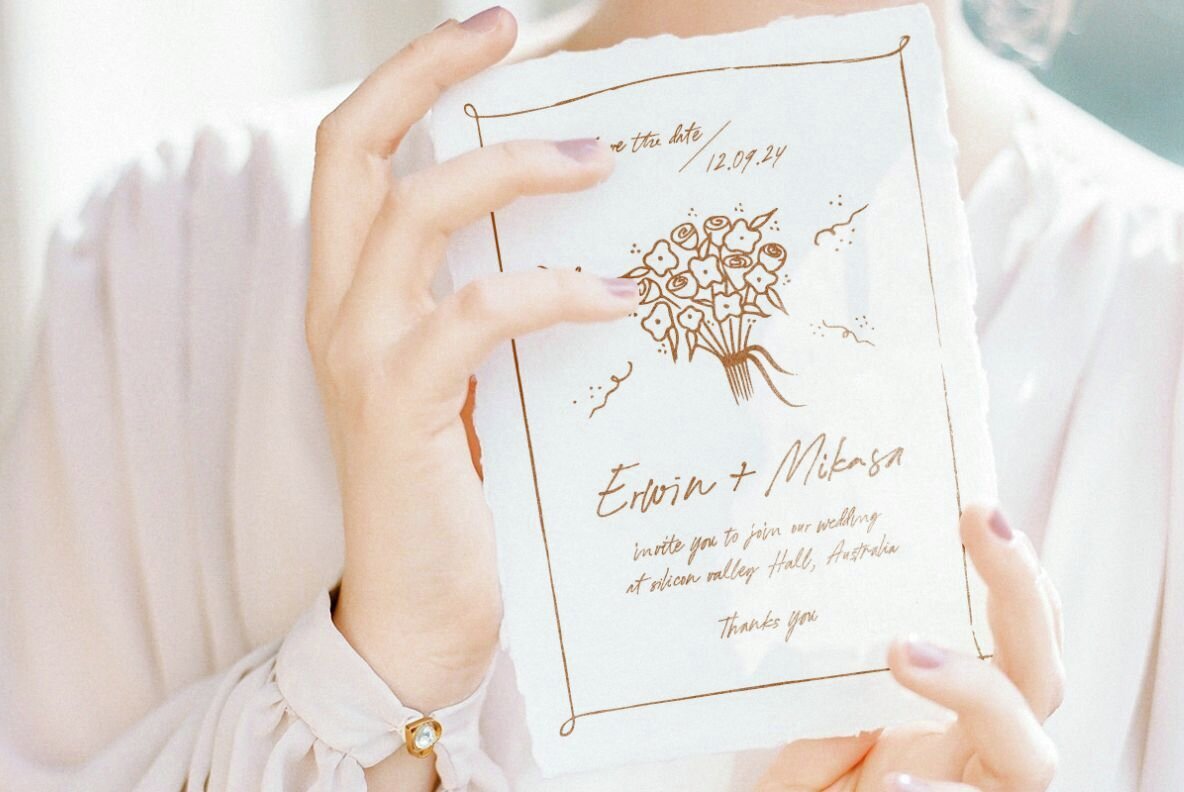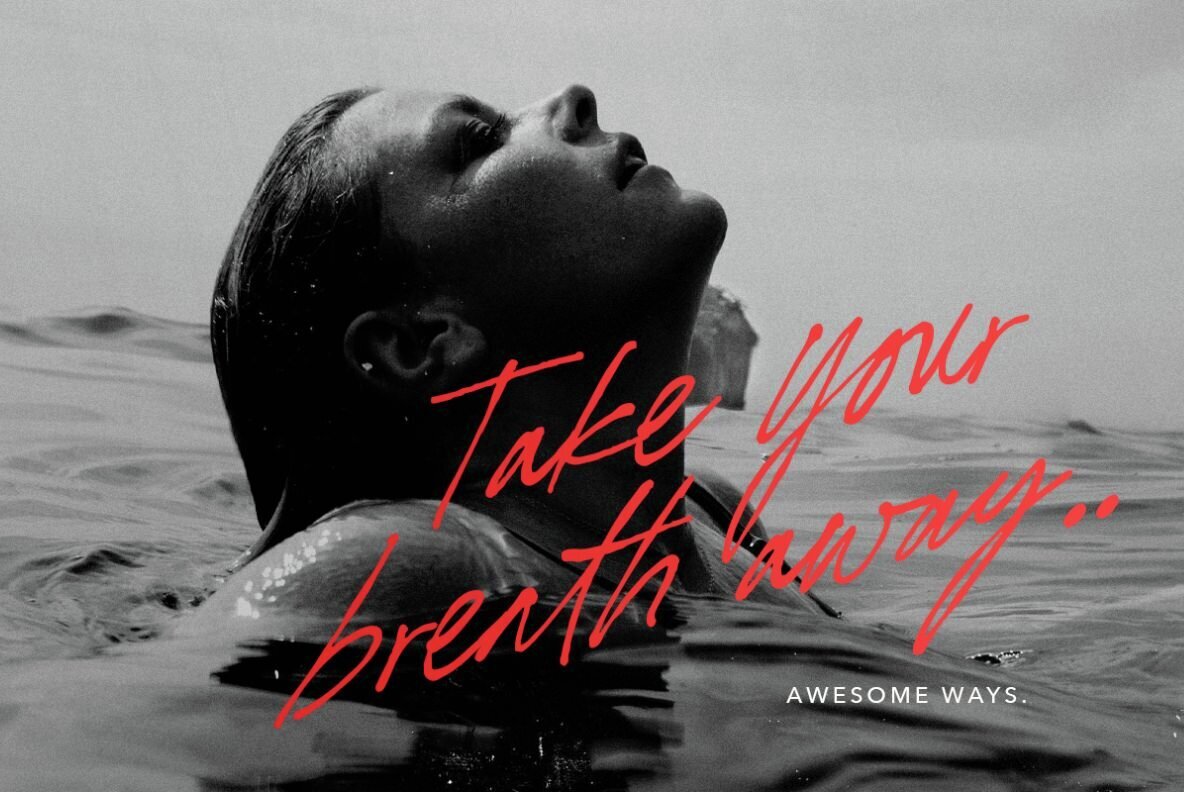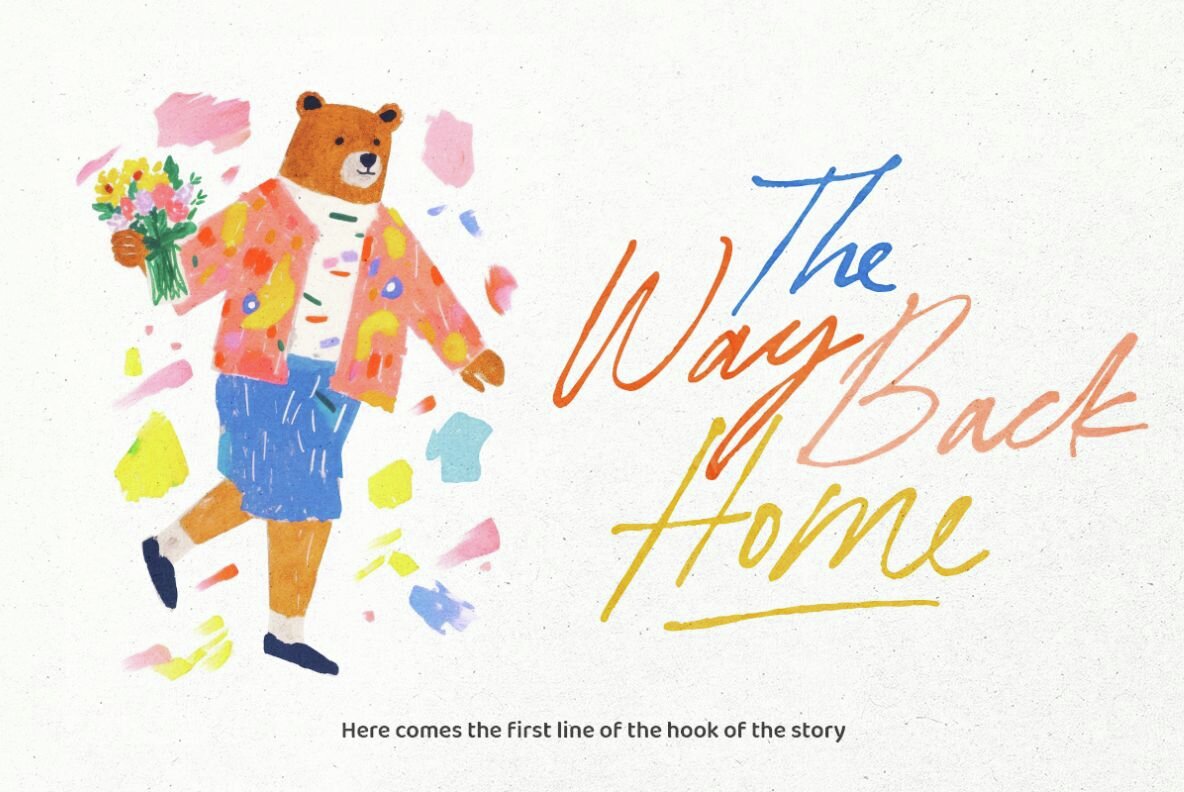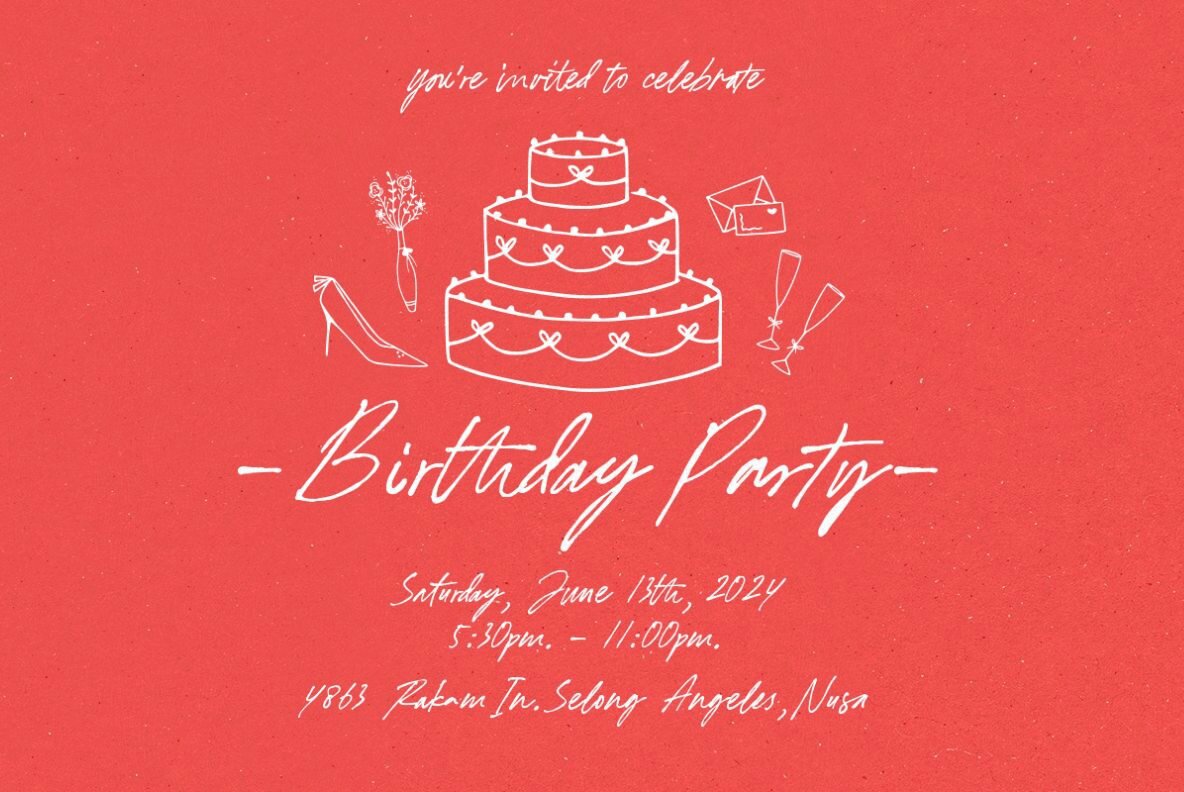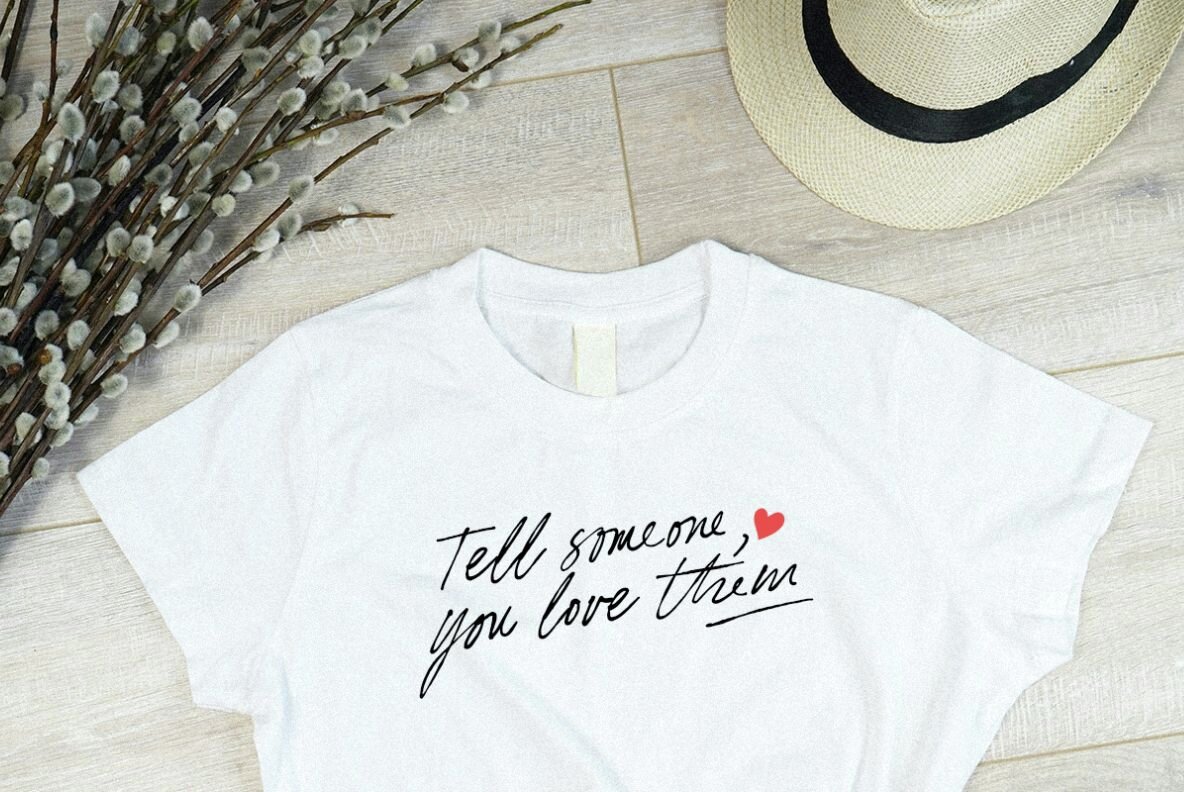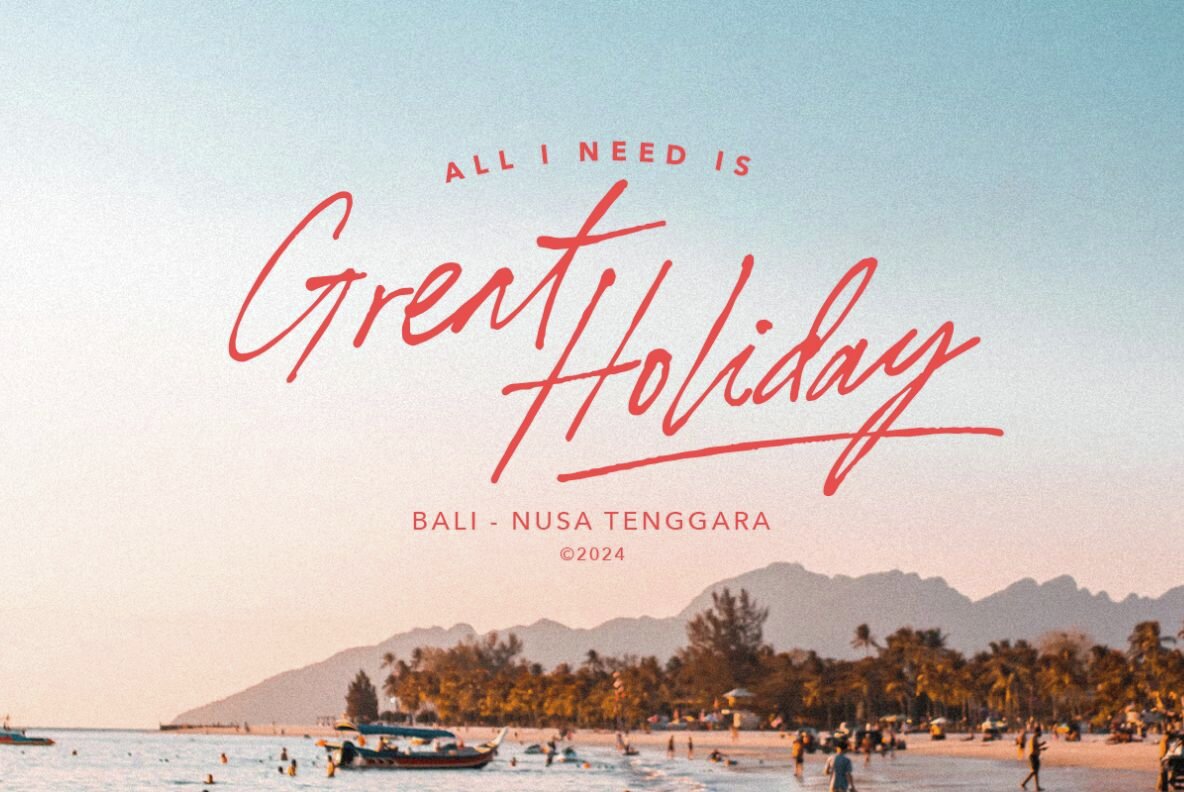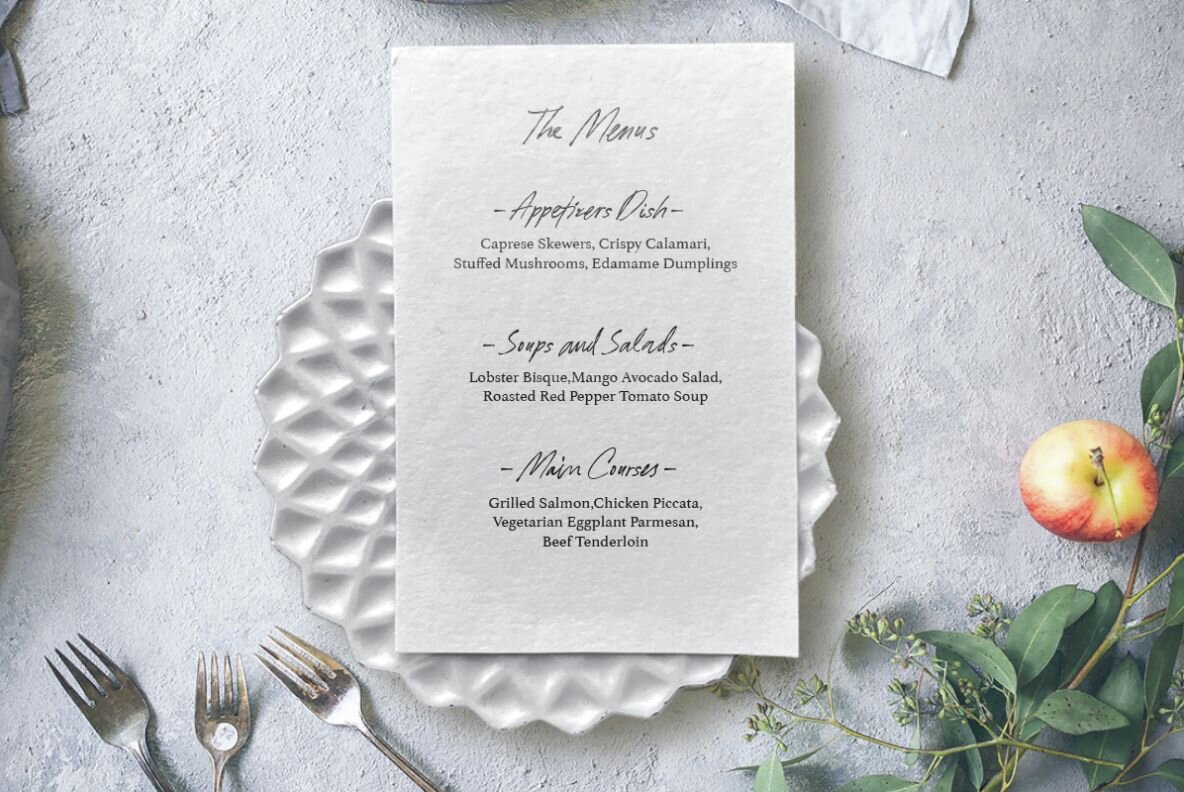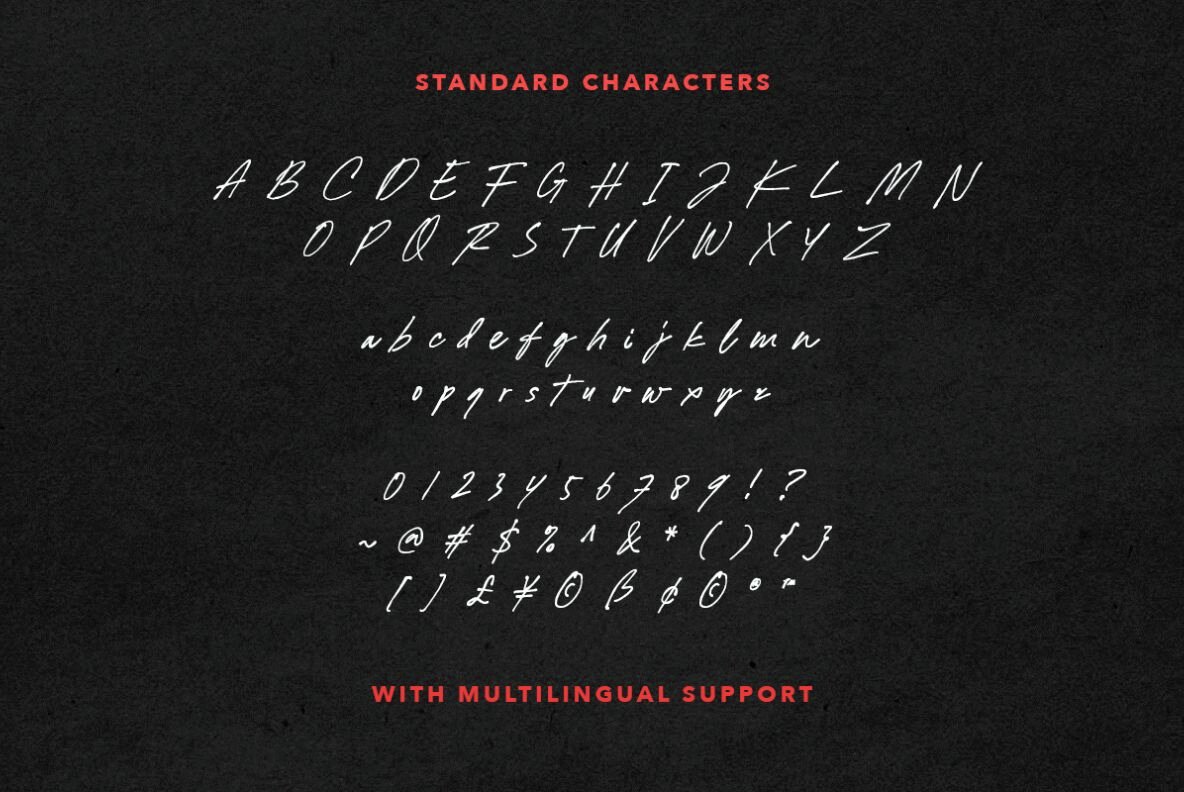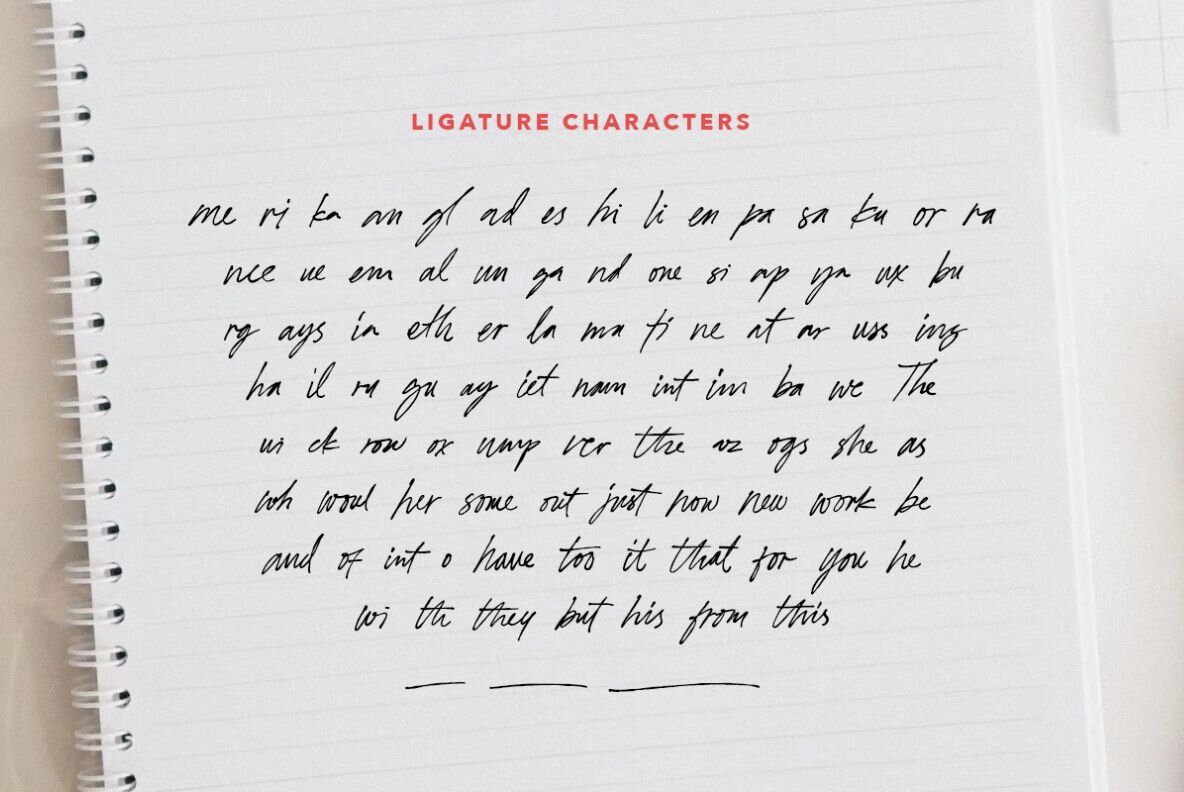
Awesome Ways Font
Awesome Ways is a handwritten script font designed to impart a natural, handcrafted feel to your projects. Featuring an array of ligatures, this font seamlessly integrates fluidity and charm, making it ideal for labels, logos, handwritten quotes, and wedding invitations. The organic flow of the letters enhances the authenticity of your design, making it perfect for projects that require a personal touch.
Additionally, Awesome Ways offers multilingual support, making it versatile for a wide range of audiences. Its ability to adapt to various languages ensures that your message can be communicated effectively, no matter the locale. This makes it an excellent choice for both local and international projects, providing flexibility and aesthetic appeal in equal measure.